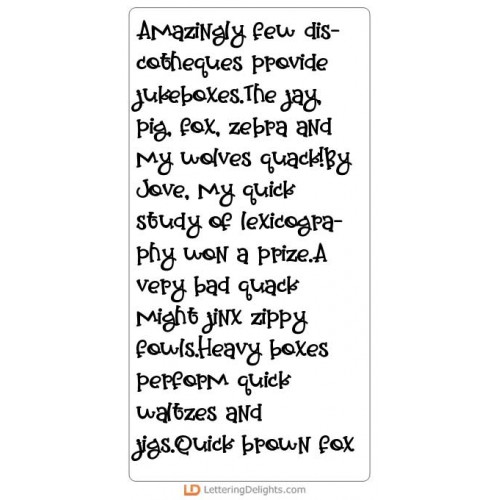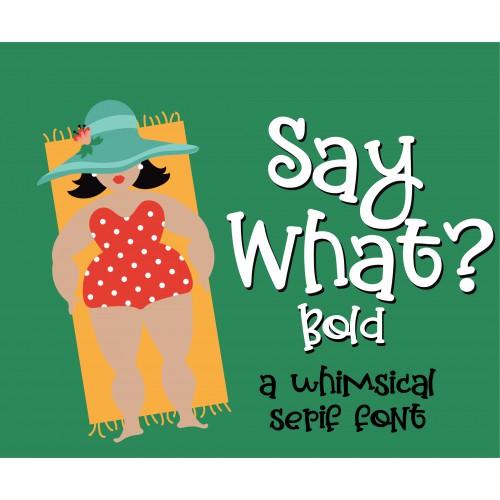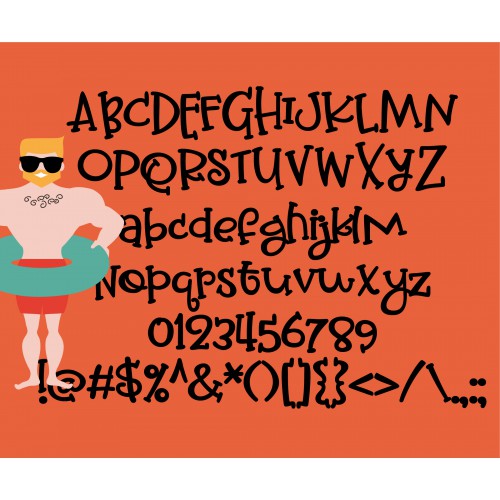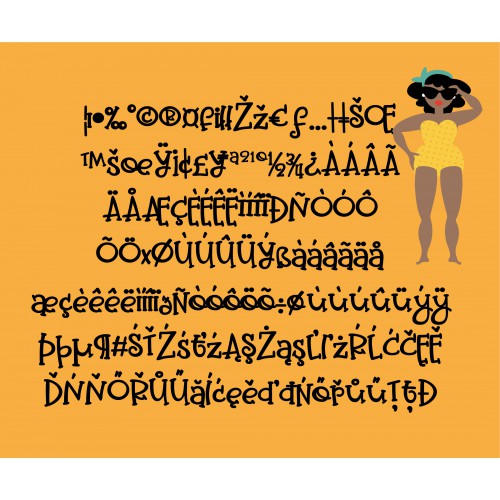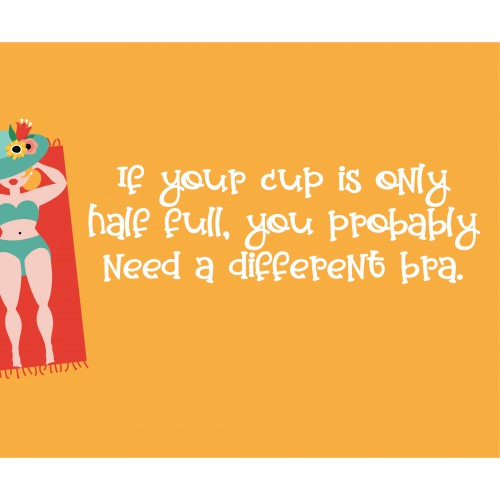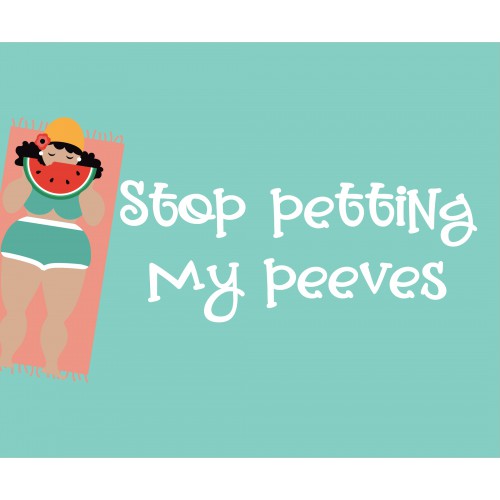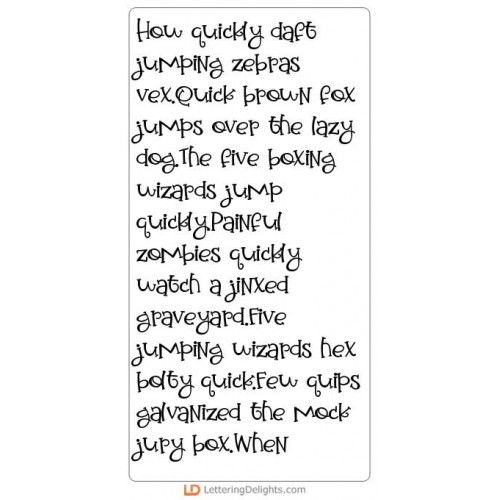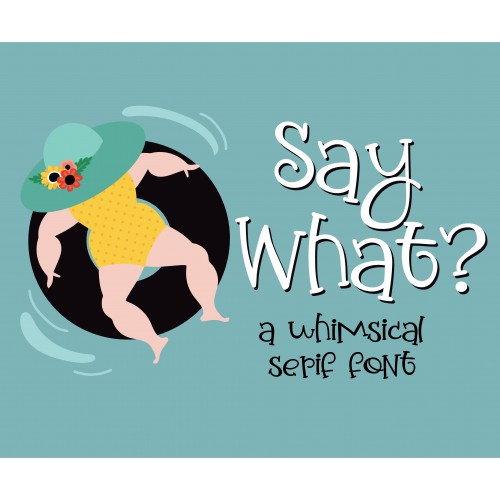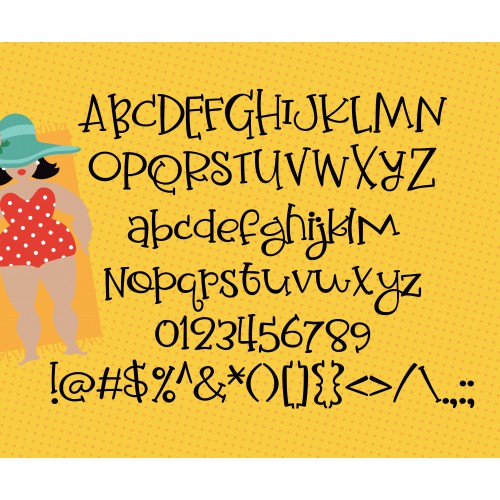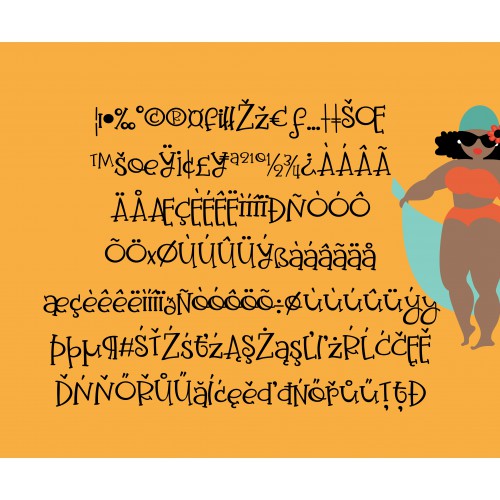
This bold version of ZP Say what is part serif, part whimsical fun and cuts out great on a cutting m..
ZP Say What - FN
This very whimsical serif font has a bouncy baseline...
Our Get Schooled Alphabet coordinates with our Get Schooled Collection...